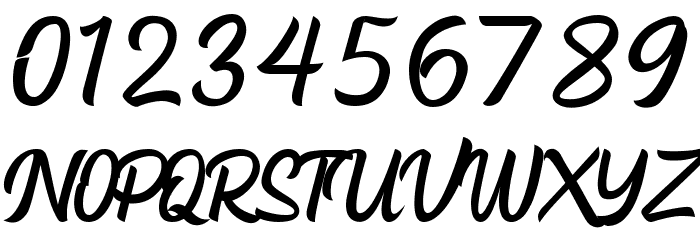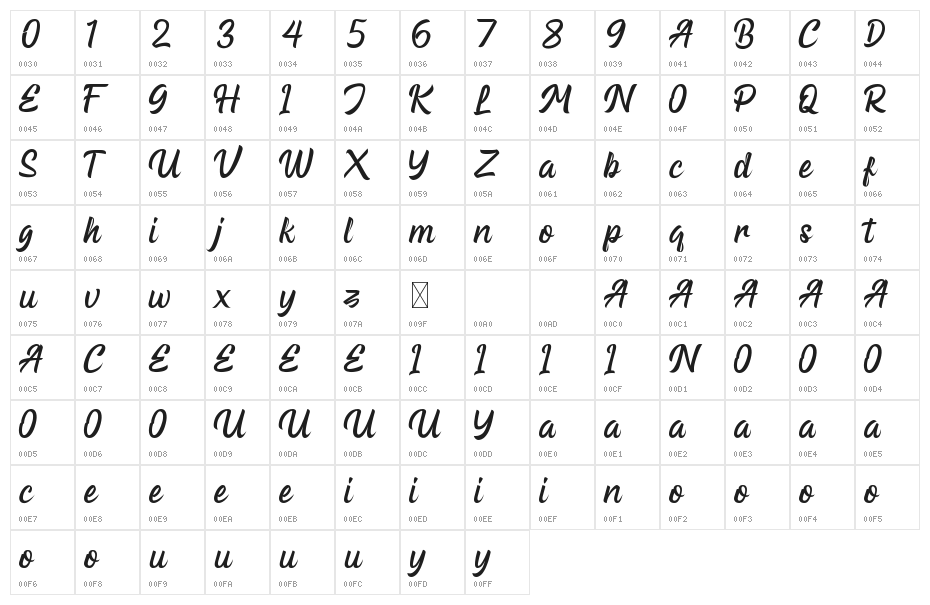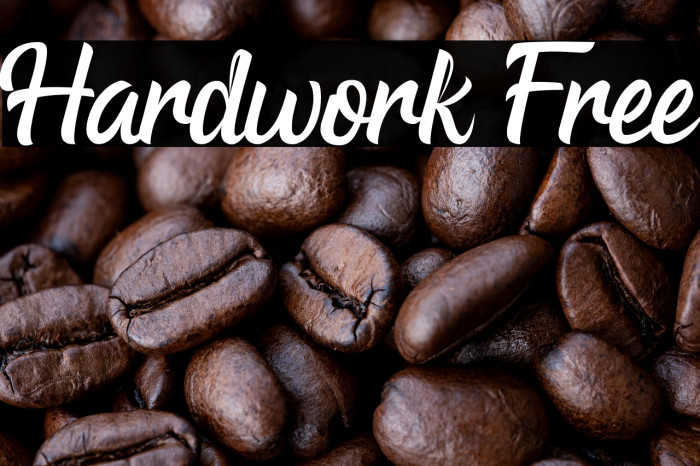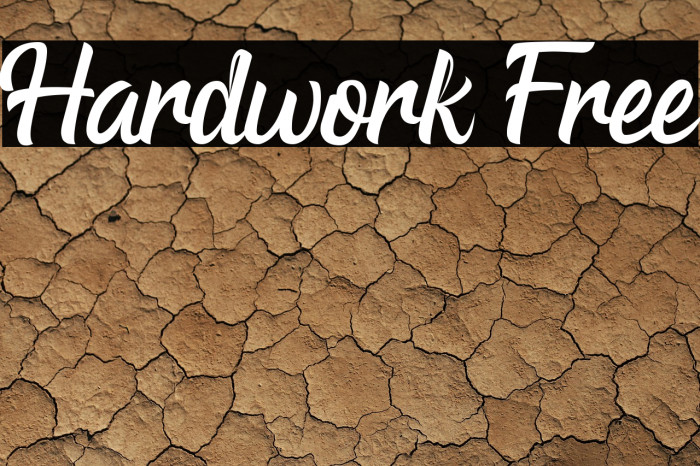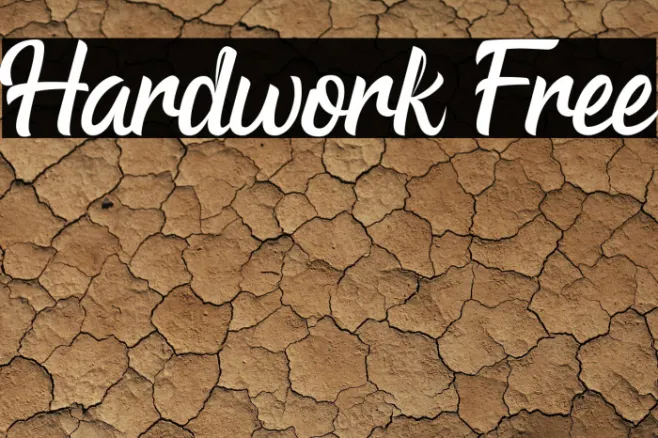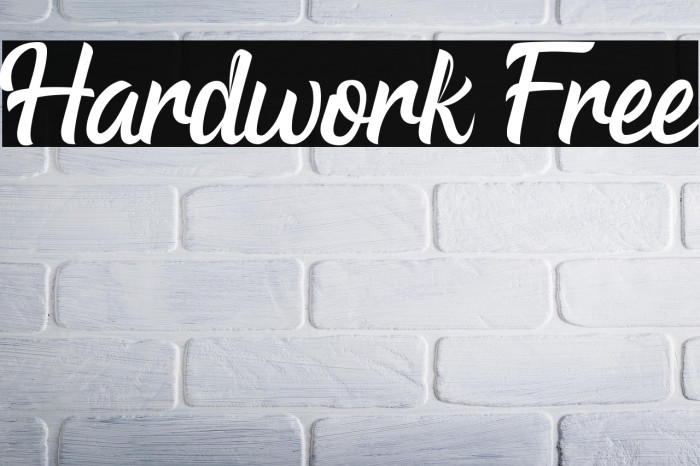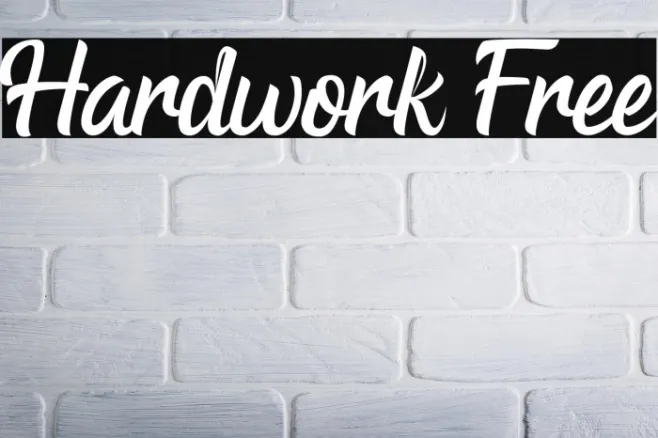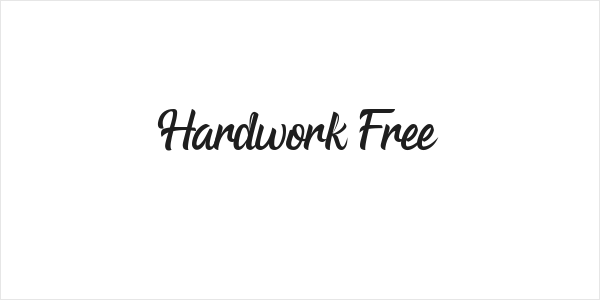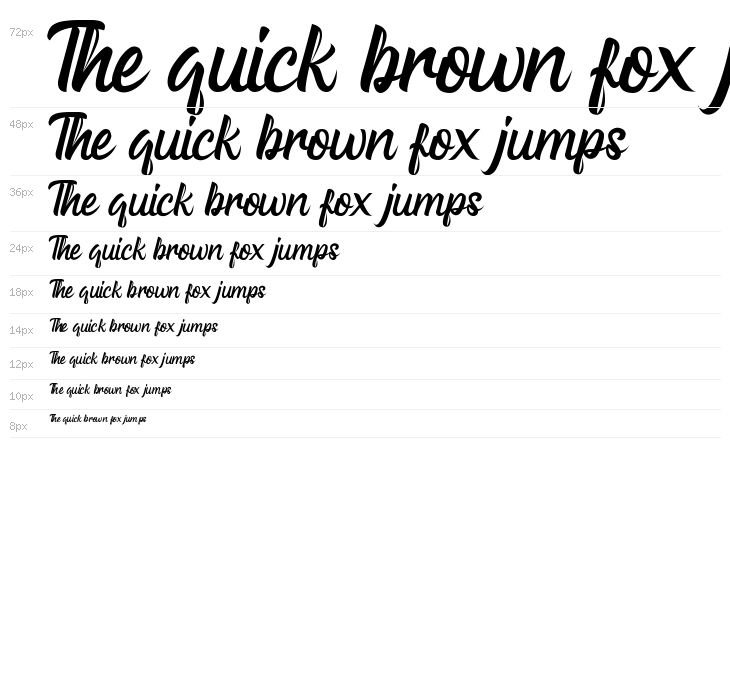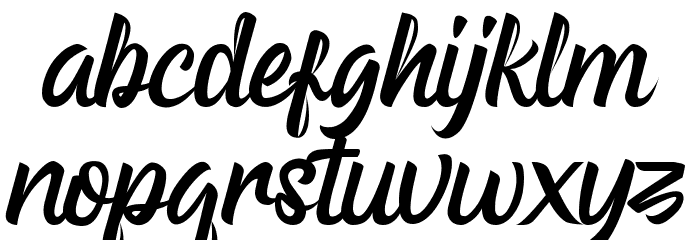
Hardwork Free Font
Hardwork Free Description
This font features a dynamic and fluid script style, characterized by its smooth, flowing lines and elegant curves. The uppercase letters are bold and expressive, with a slight slant that adds a sense of motion and energy. The lowercase letters maintain a consistent style, complementing the uppercase with their rounded forms and connected strokes. Numbers are clear and legible, matching the overall aesthetic with their balanced proportions. The special characters are seamlessly integrated, maintaining the font's cohesive look. This font exudes a sense of creativity and flair, making it ideal for projects that require a personal touch.